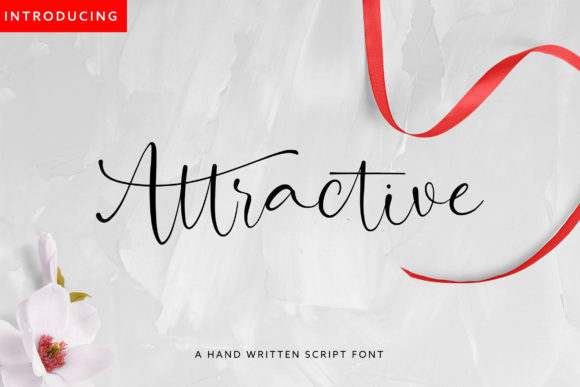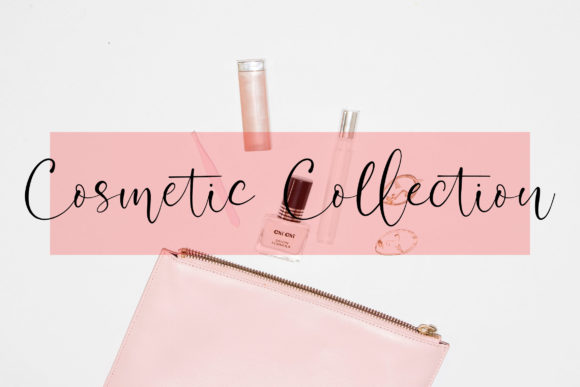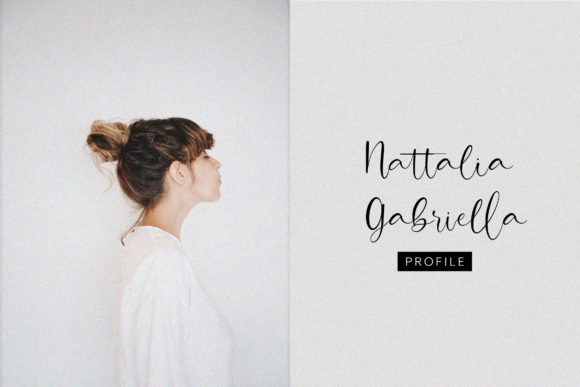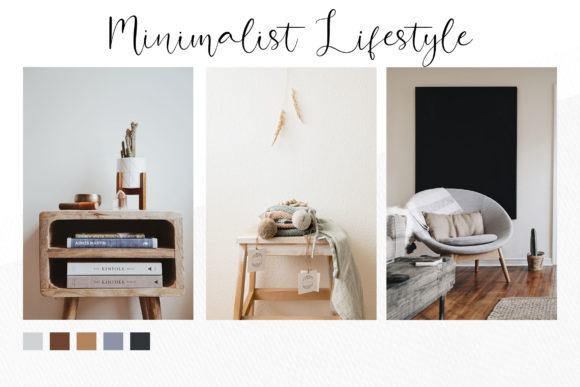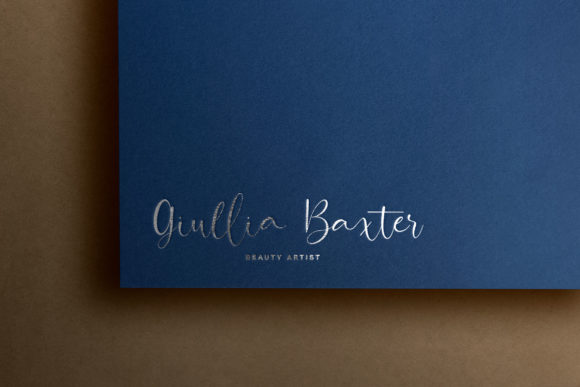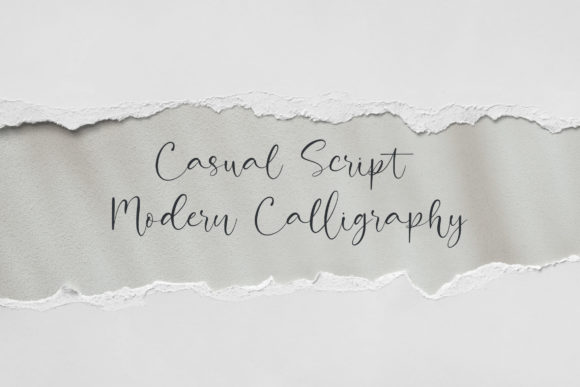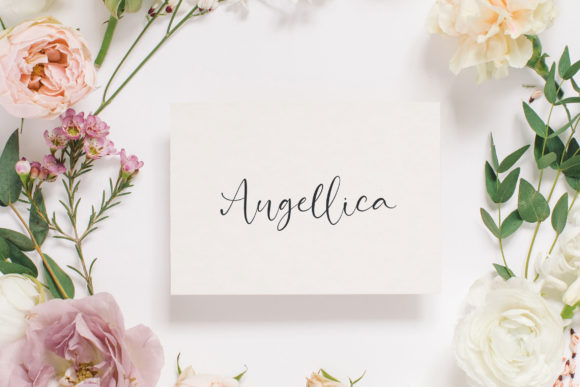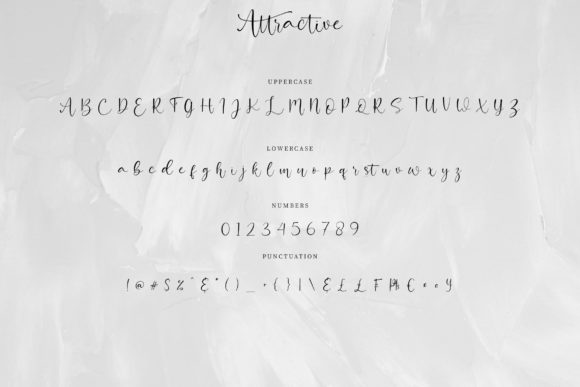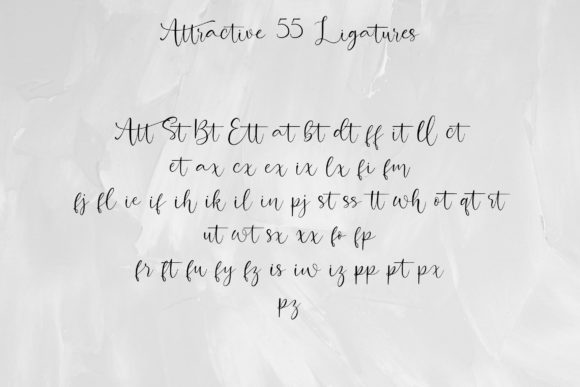
Attractive Font
About Attractive Font
Attractive is a sweet, round lettered handwritten font. It is PUA encoded which means you can access all of the glyphs and swashes with ease! It features a varying baseline, smooth lines, gorgeous glyphs and stunning alternates.
Fall in love with Attractive’s incredibly versatile style and use it to create spectacular designs!